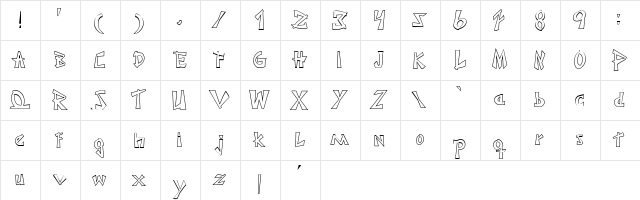
JaponesaOutline Regular
| Foundry | Iza W, Intellecta design |
Design Context for JaponesaOutline Typeface
JaponesaOutline brings ornamental detail and strong personality to headlines and identities, where visual impact matters more than quiet functionality.
Font Pairing: Pair with a clean neutral sans-serif for body copy to let JaponesaOutline's character lead without overwhelming the composition.
Pro Tip: Use JaponesaOutline exclusively at display sizes — it was designed to be seen, not read at length. Let a neutral companion handle body copy.